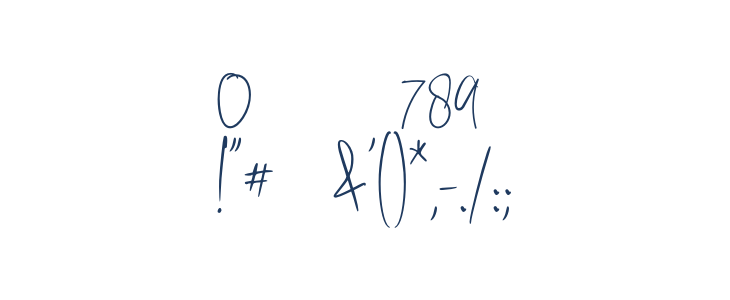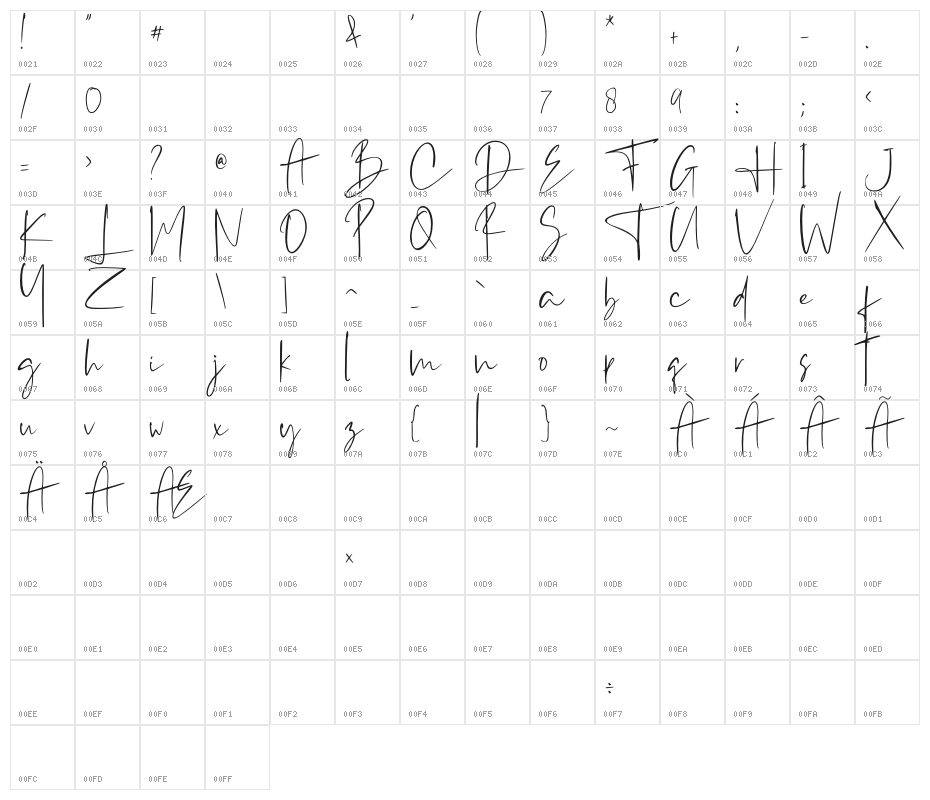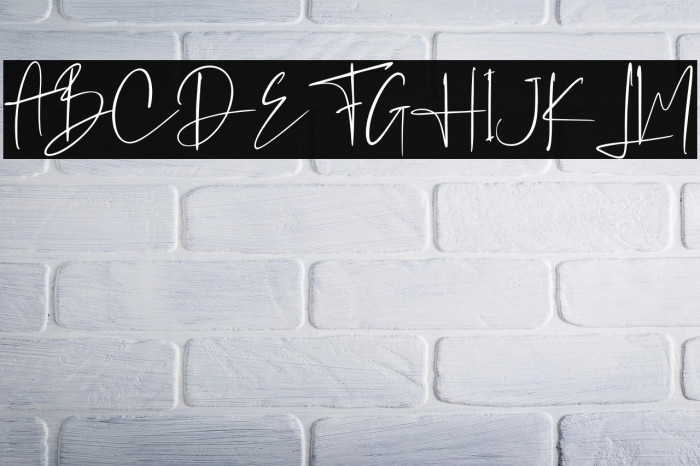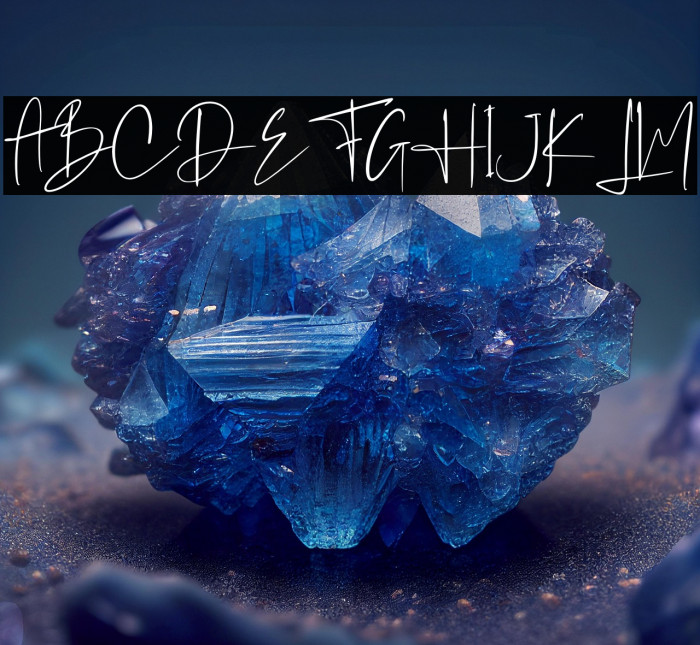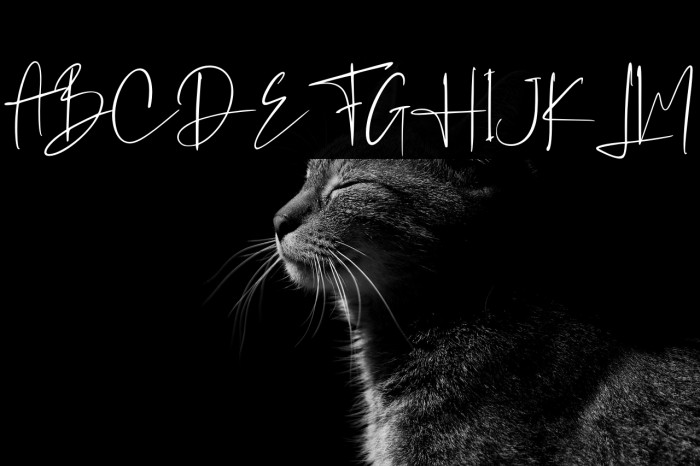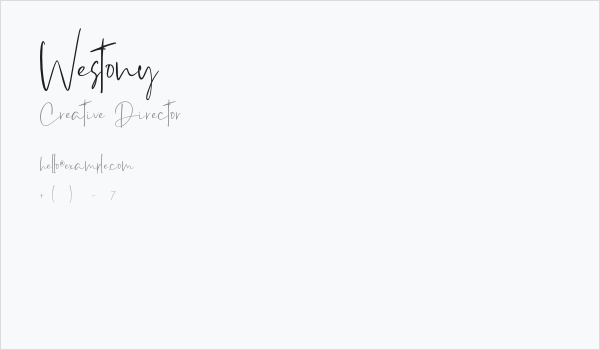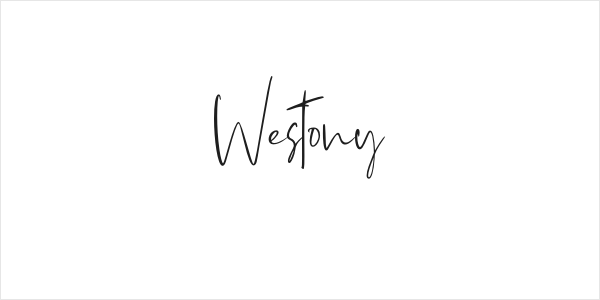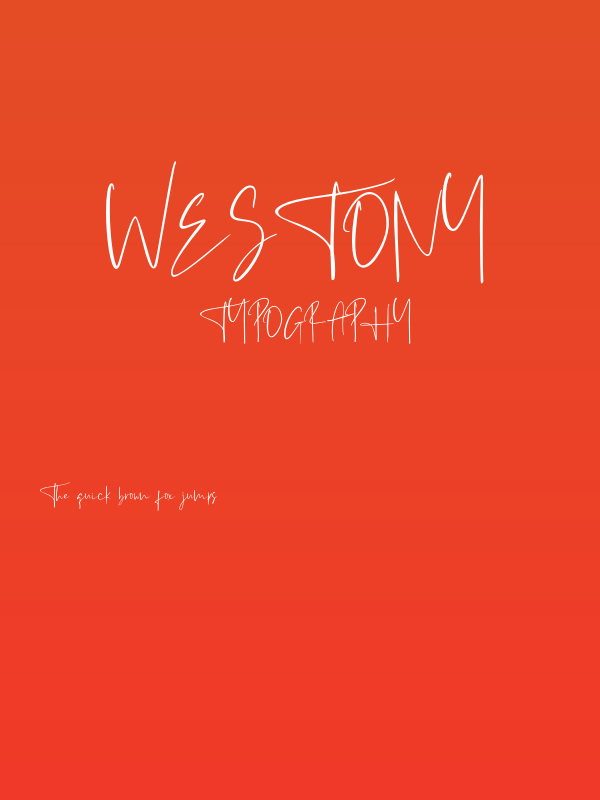
Westony Font
Westony Description
This font exudes a dynamic and lively handwritten style, characterized by its fluid and cursive strokes. The uppercase letters are tall and slender, with a playful yet elegant flair, while the lowercase letters maintain a consistent flow, enhancing the script-like appearance. The numerals are distinct and maintain the same handwritten charm, ensuring readability. Special characters are creatively integrated, adding to the font's versatility. The overall design is both modern and artistic, making it suitable for a variety of creative projects.